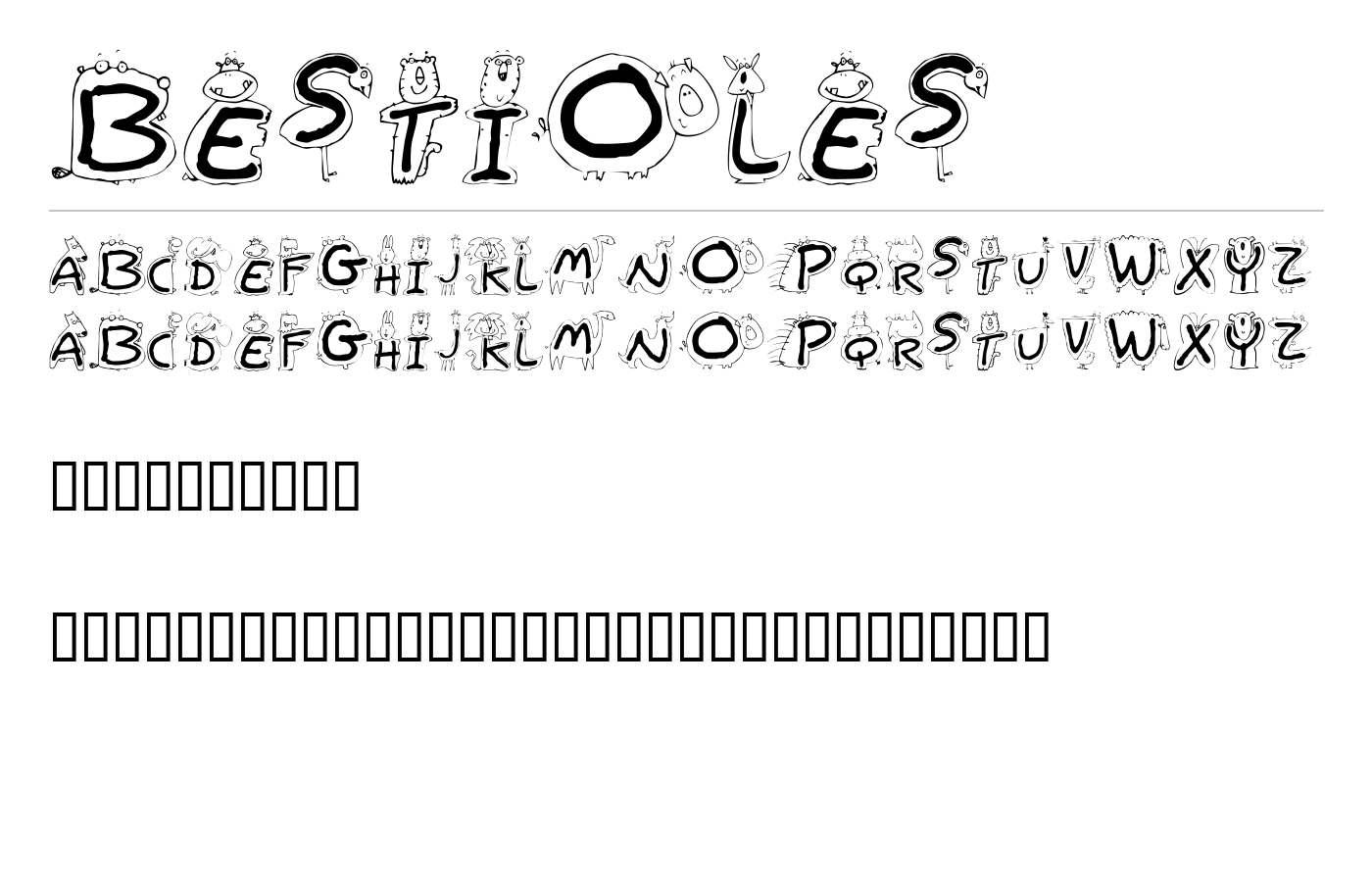
Bestioles is a playful, hand-drawn display font with whimsical letterforms that resemble quirky little creatures. Its irregular strokes and lively details give it a fun and informal personality, making it ideal for children's projects, casual branding, and creative headlines where a unique, friendly vibe is desired. This font stands out best in designs that want to convey humor and imagination rather than formal or polished tones.
Bestioles Font
About Bestioles Font
| Font family | Bestioles Font |